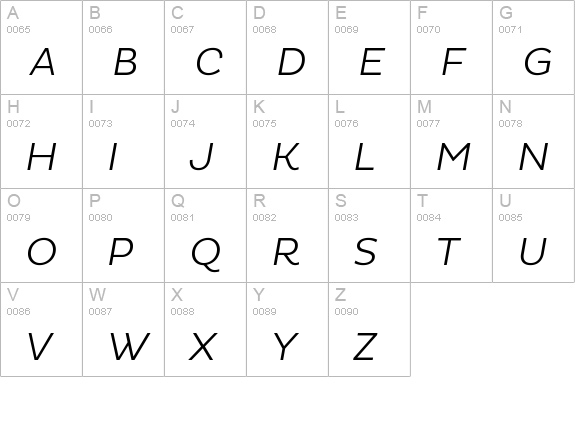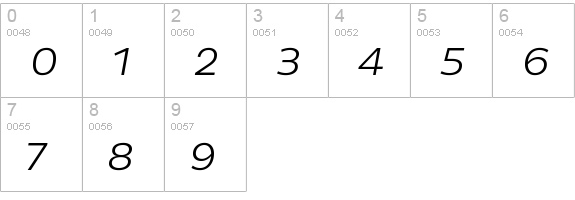
Pluto Light Italic Font Details
Pluto Light Italic is a refined, elegant, italic variant in the Pluto typeface family \xE2\x80\x94 well suited to elegant body text, refined sub-headings, and luxury branding.
Introducing Pluto Light Italic font - a sleek and modern typeface that exudes elegance and sophistication. Its delicate strokes and stylish curves give off a sense of grace and luxury, making it perfect for adding a touch of refinement to any project. Whether you're designing a logo, creating branding materials, or working on a print project, Pluto Light Italic is sure to make a lasting impression. And the best part? Pluto Light Italic font is completely free to download at FontsMarket.com! This means you can easily access this stunning typeface without any cost, making it a fantastic option for designers on a budget or anyone looking to elevate their design work without breaking the bank. Don't miss out on the opportunity to enhance your projects with the beauty and sophistication of Pluto Light Italic font - download it now for free at FontsMarket.com!